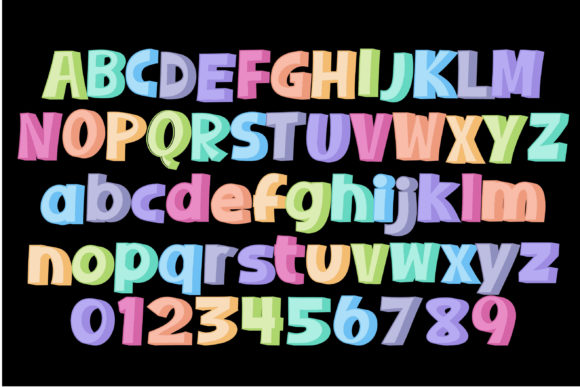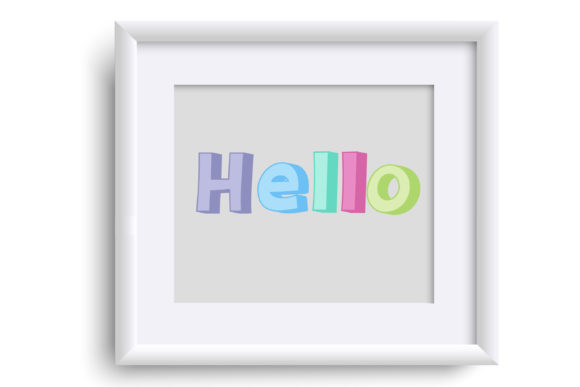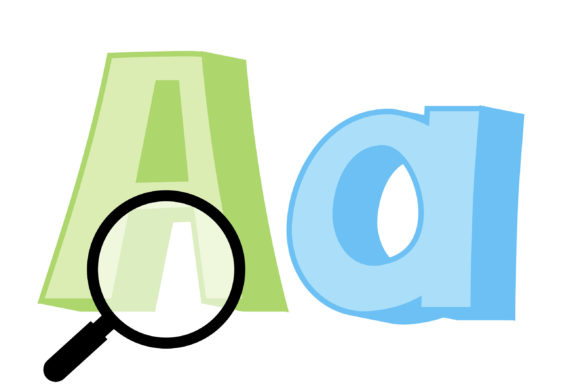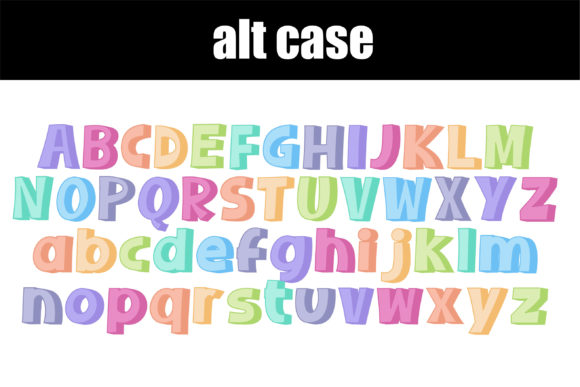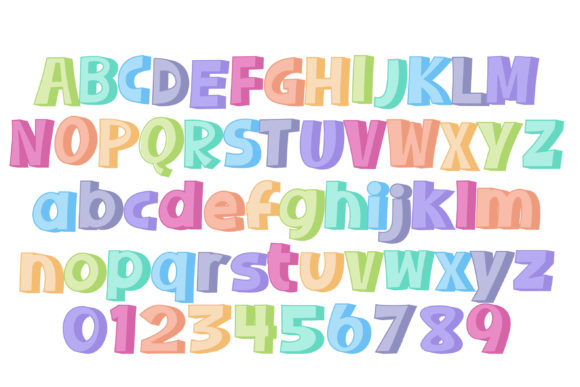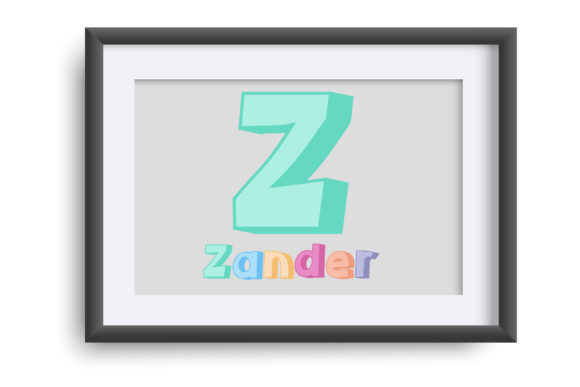
Sherbet Shadow Too Font
This full-color font features blocky, pastel lettering with a soft pastel shadow on each letter. It offers a vibrant and playful aesthetic that can enhance your designs. In addition to the main lettering style, there is a second version available for each upper and lowercase letter, which can be accessed through the alt cases feature in your system’s character map.
By incorporating this full-color font into your designs, you can add a visually appealing and eye-catching element to your creative projects. Its blocky lettering and soft pastel shadows create a distinctive and playful look, making it suitable for various design applications.
Explore the possibilities of this full-color font and unleash your creativity in programs that support color fonts. With its vibrant pastel lettering and shadows, this font can bring an extra level of charm and visual interest to your designs.